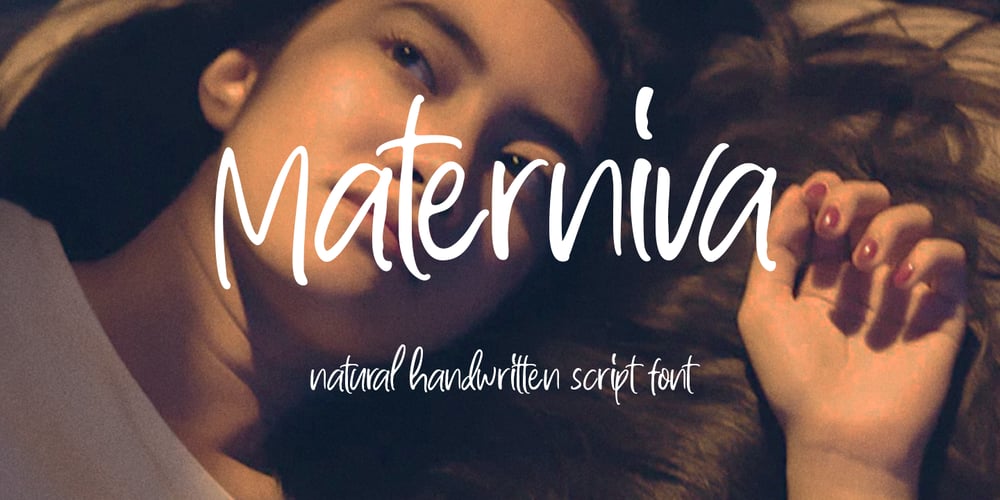
Materniva Font Family was designed by Gustian Agung Asprilla and published by Rillatype. Materniva contains 1 styles and family package options. introducing, Materniva. a natural handwritten font with a feminine feel. this font is designed to fit your needs to a beautiful natural handwritten font. this font is perfect for branding, packaging, wedding invitation, logo, magazine, book, wedding card, etc.Features : uppercase & lowercase numbers and punctuation multilingual ligatures PUA encoded